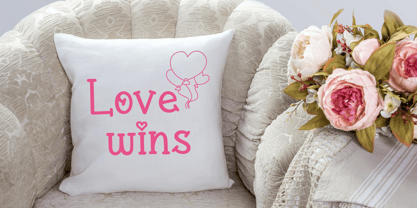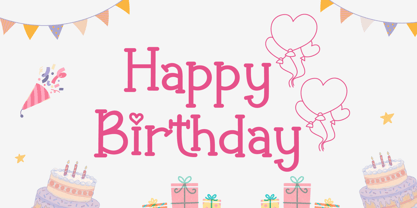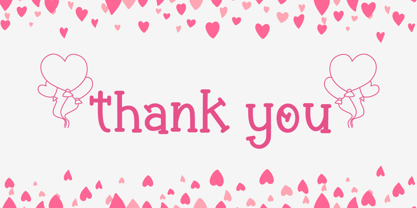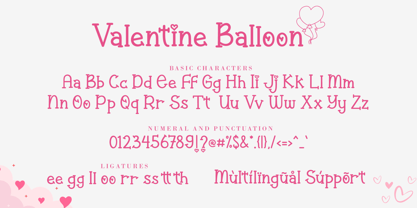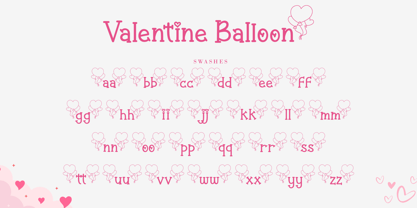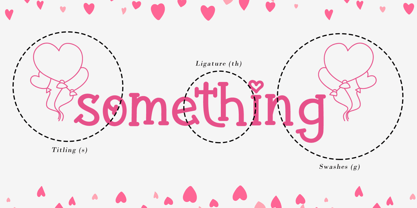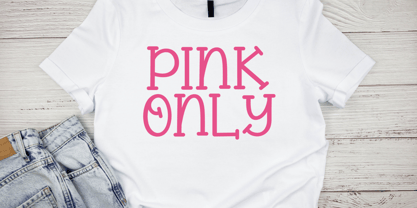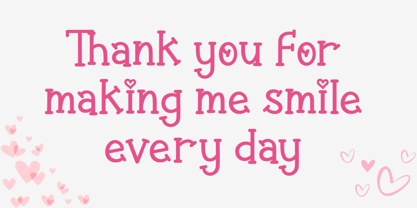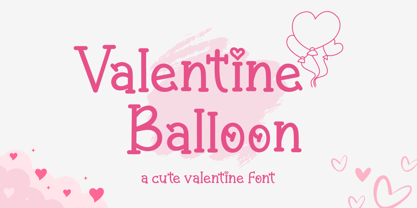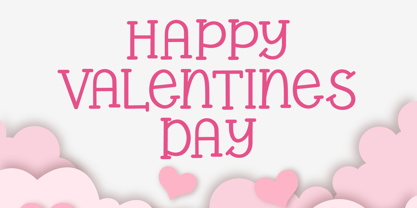
Valentine Balloon
by AEN Creative Studio
The Valentine Balloon Font Family was designed by Agung Eko Nugroho and published by AEN Creative Studio. Valentine Balloon contains 2 styles and family package options. More about this family
Introducing our Valentine Balloon handwritten font, the perfect choice for love-filled creations! From DIY projects to social media posts and lovely merchandise, this font captures the spirit of romance and creativity. Its playful yet elegant design will make every creation stand out. Start spreading the love today!